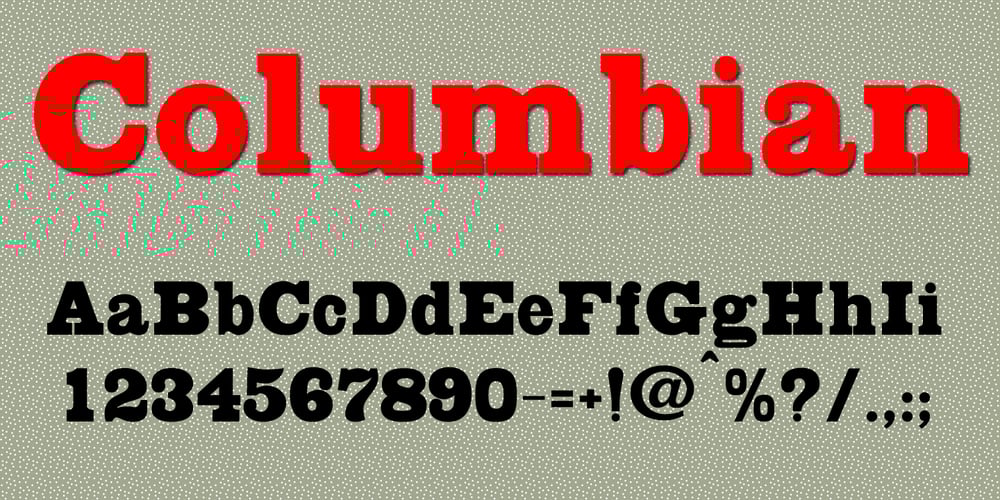
Columbian
Columbian font
Columbian Font Family was designed by Jordan Davies and published by Wooden Type Fonts. Columbian contains 1 styles and family package options. One of the classic display types of the 19th century, an Egyptian with bracketed serifs. Quite bold.